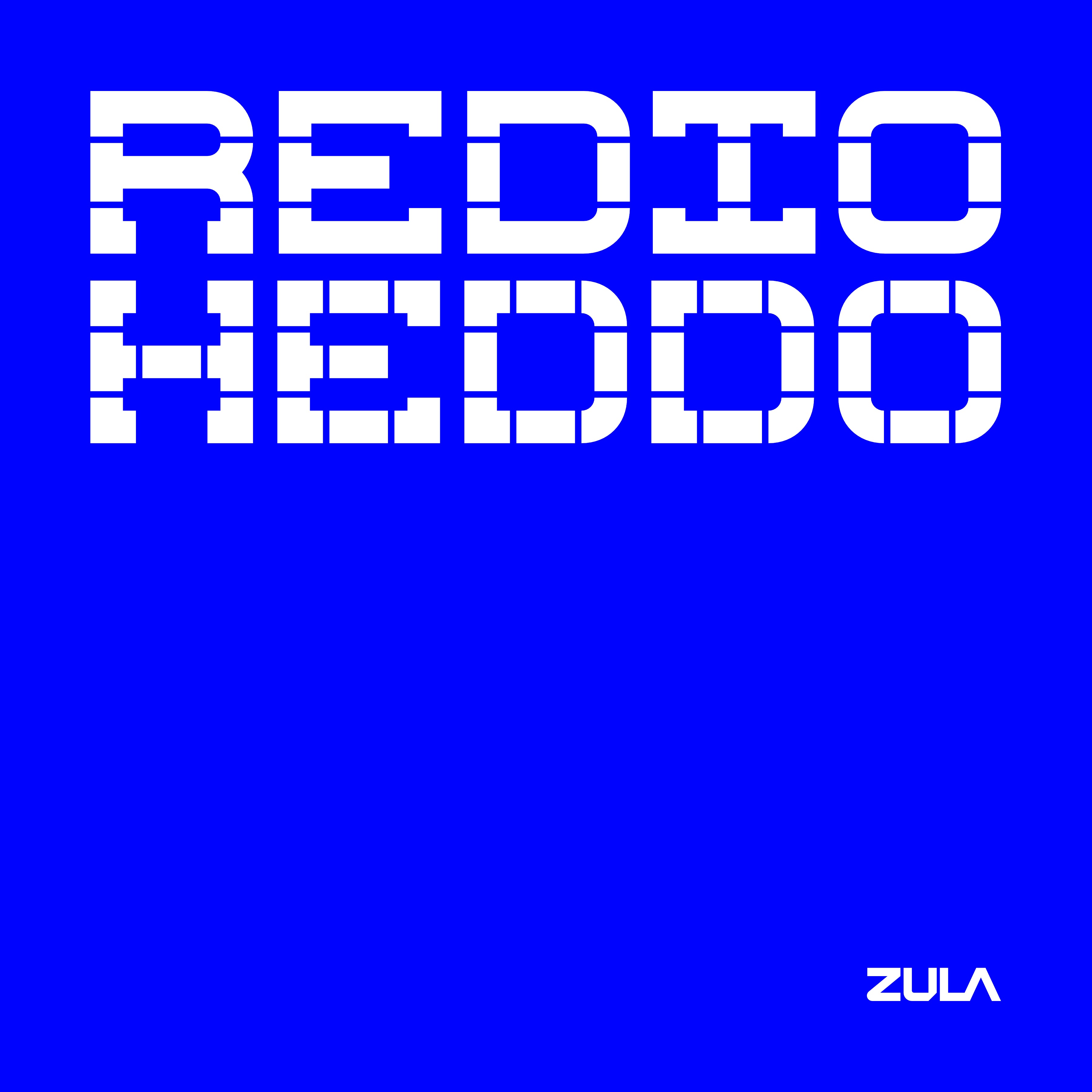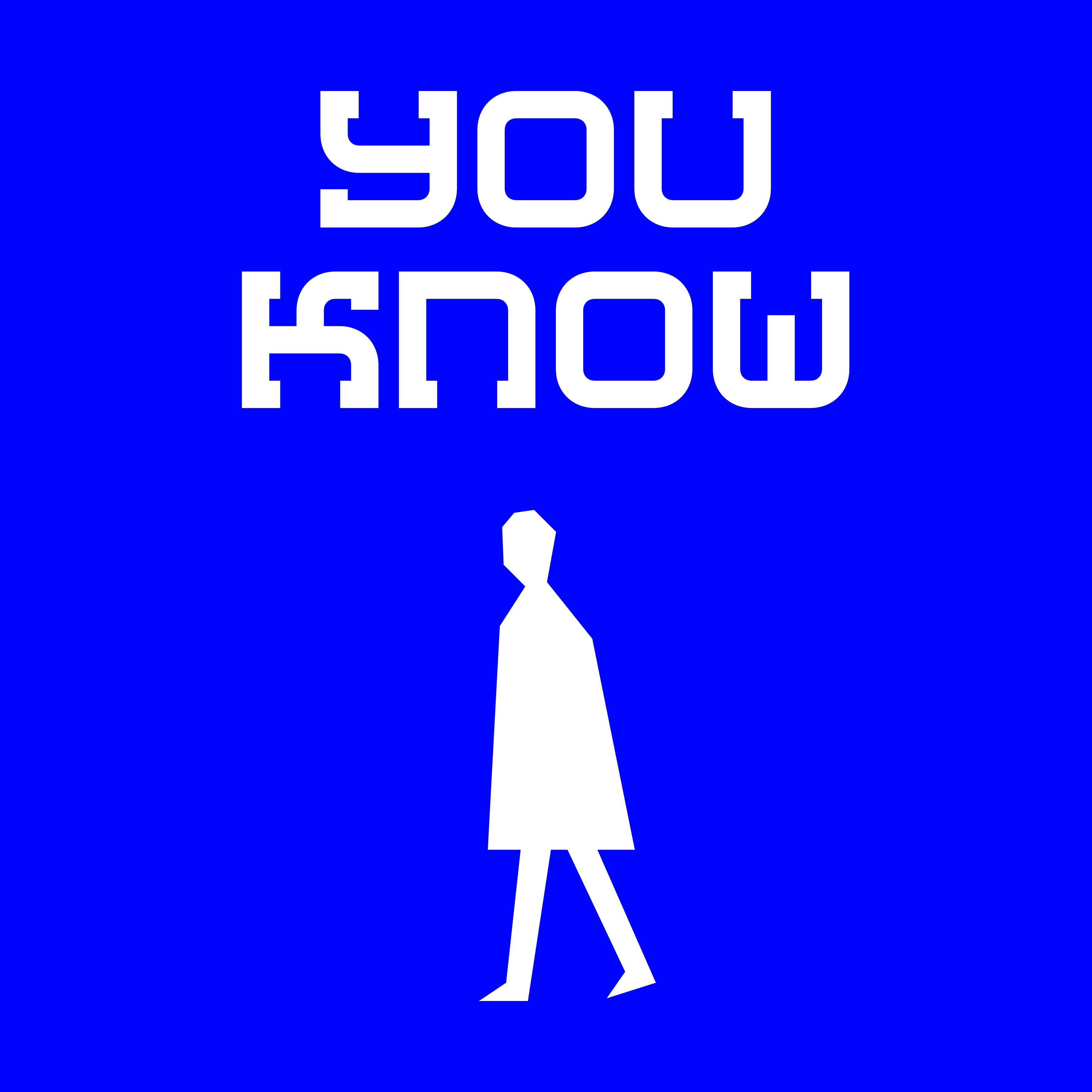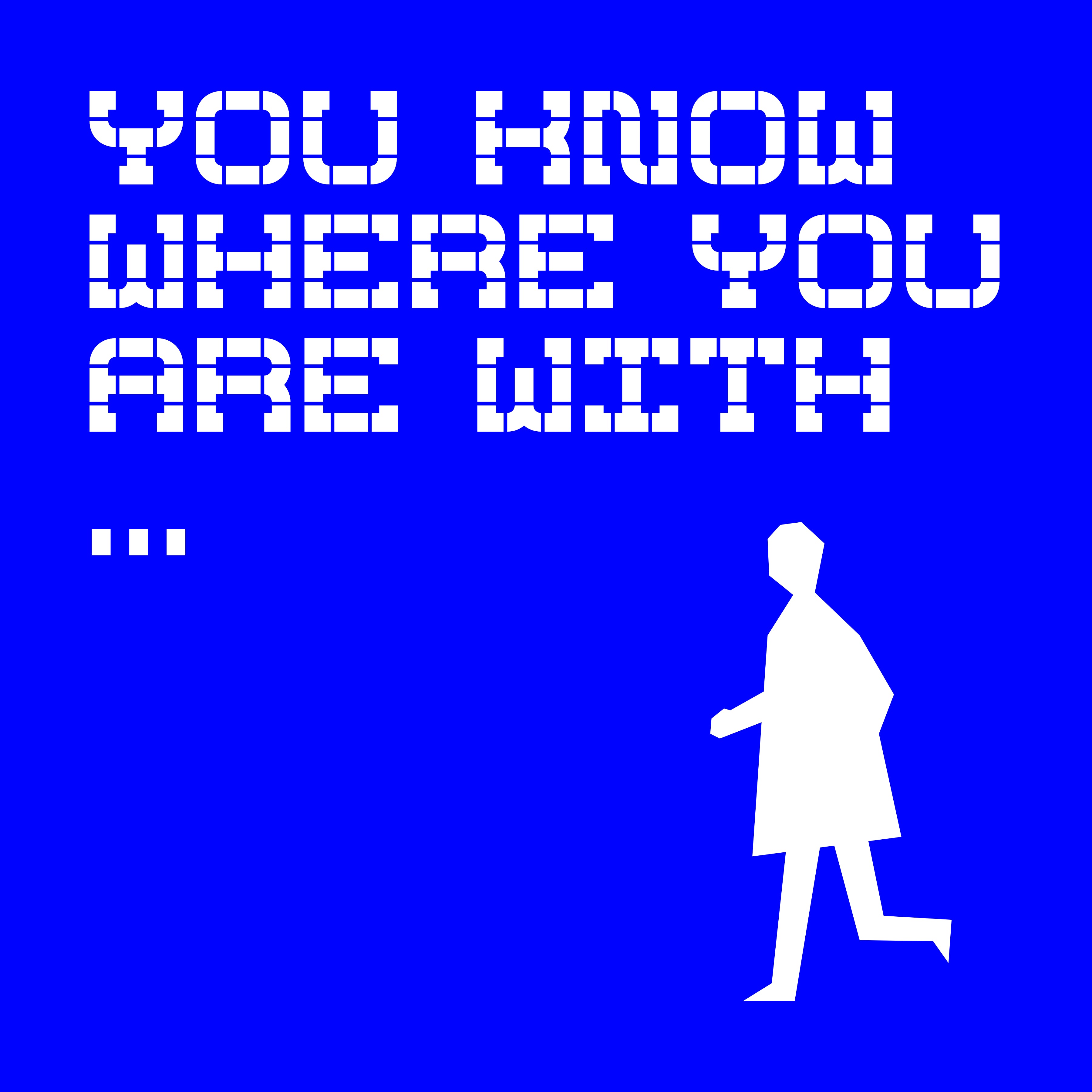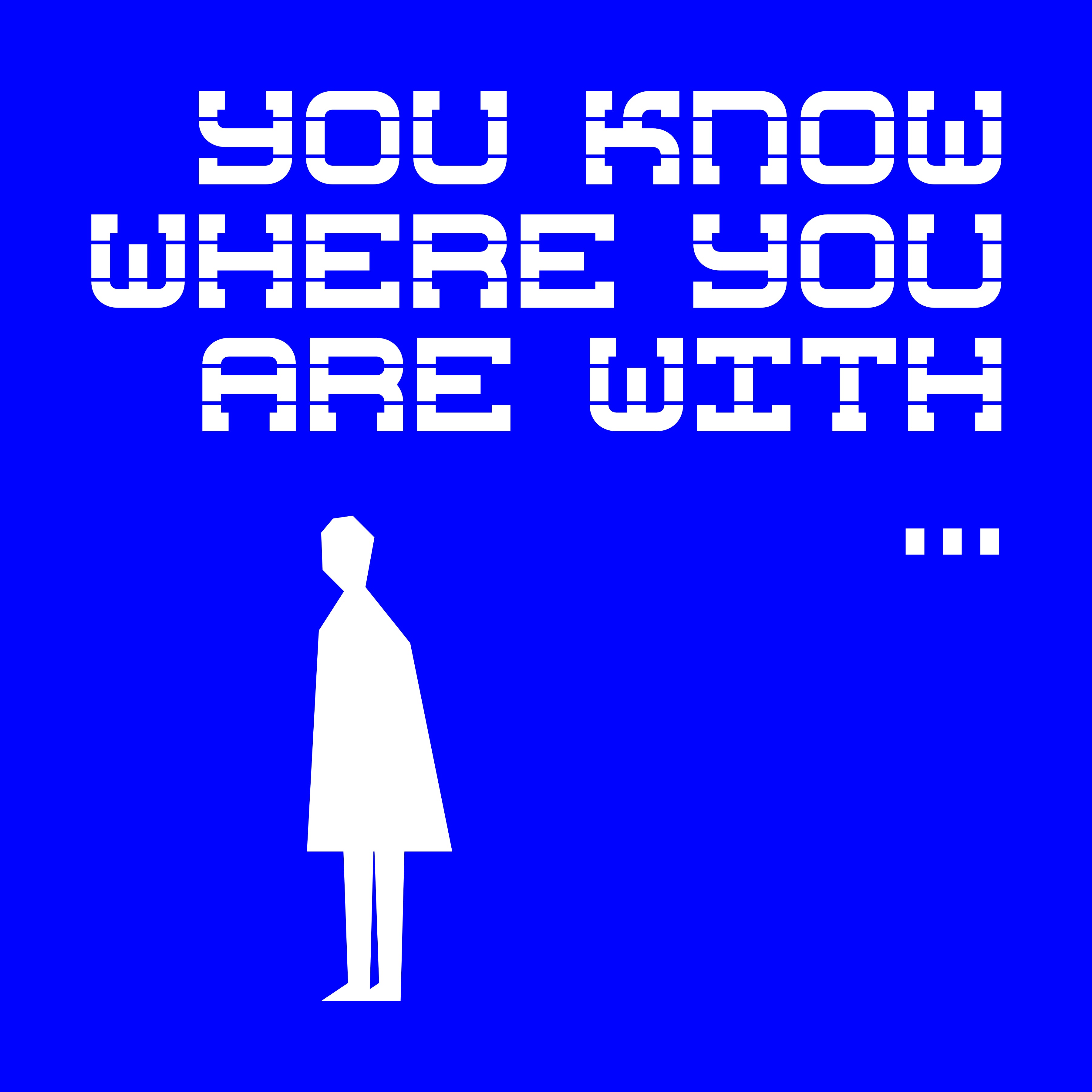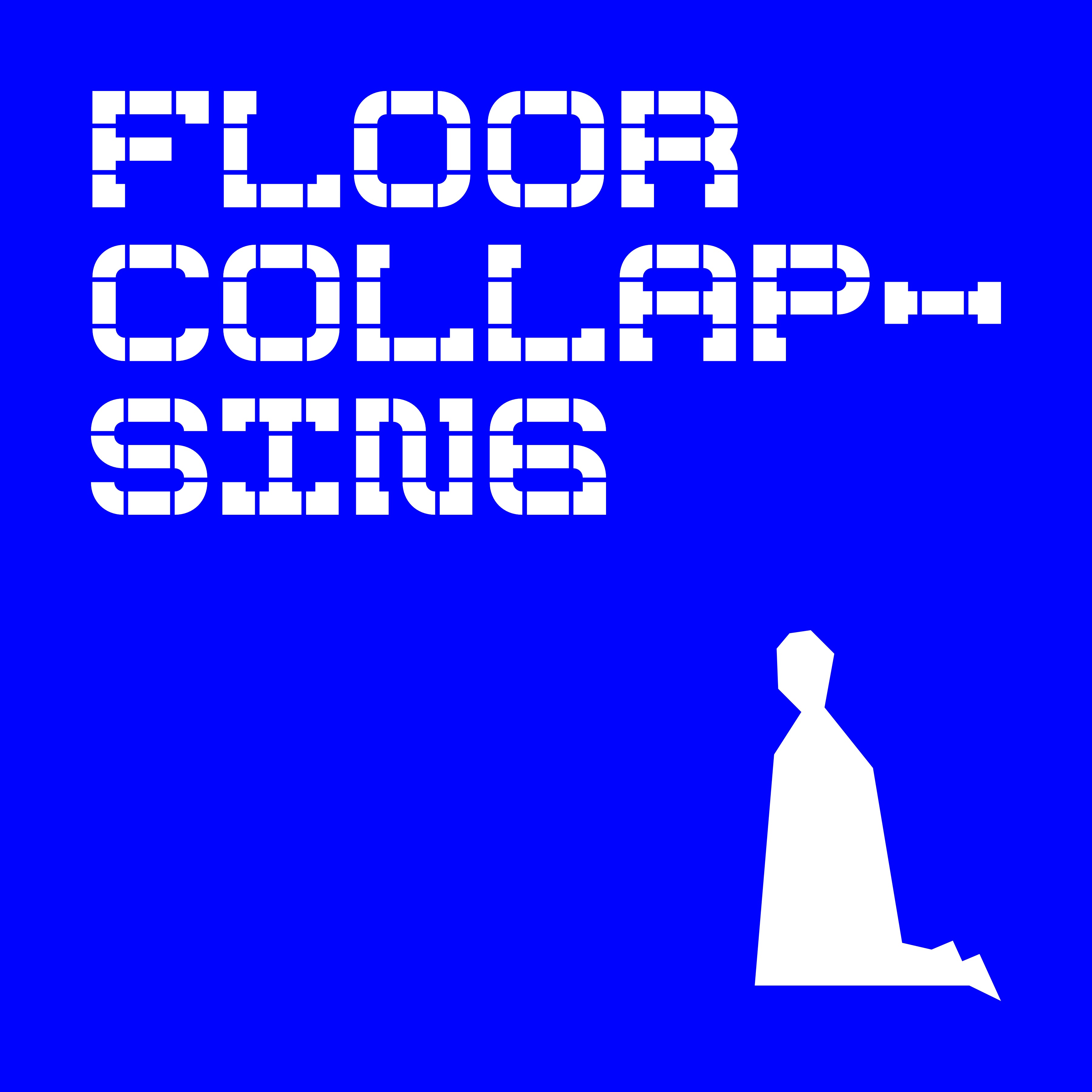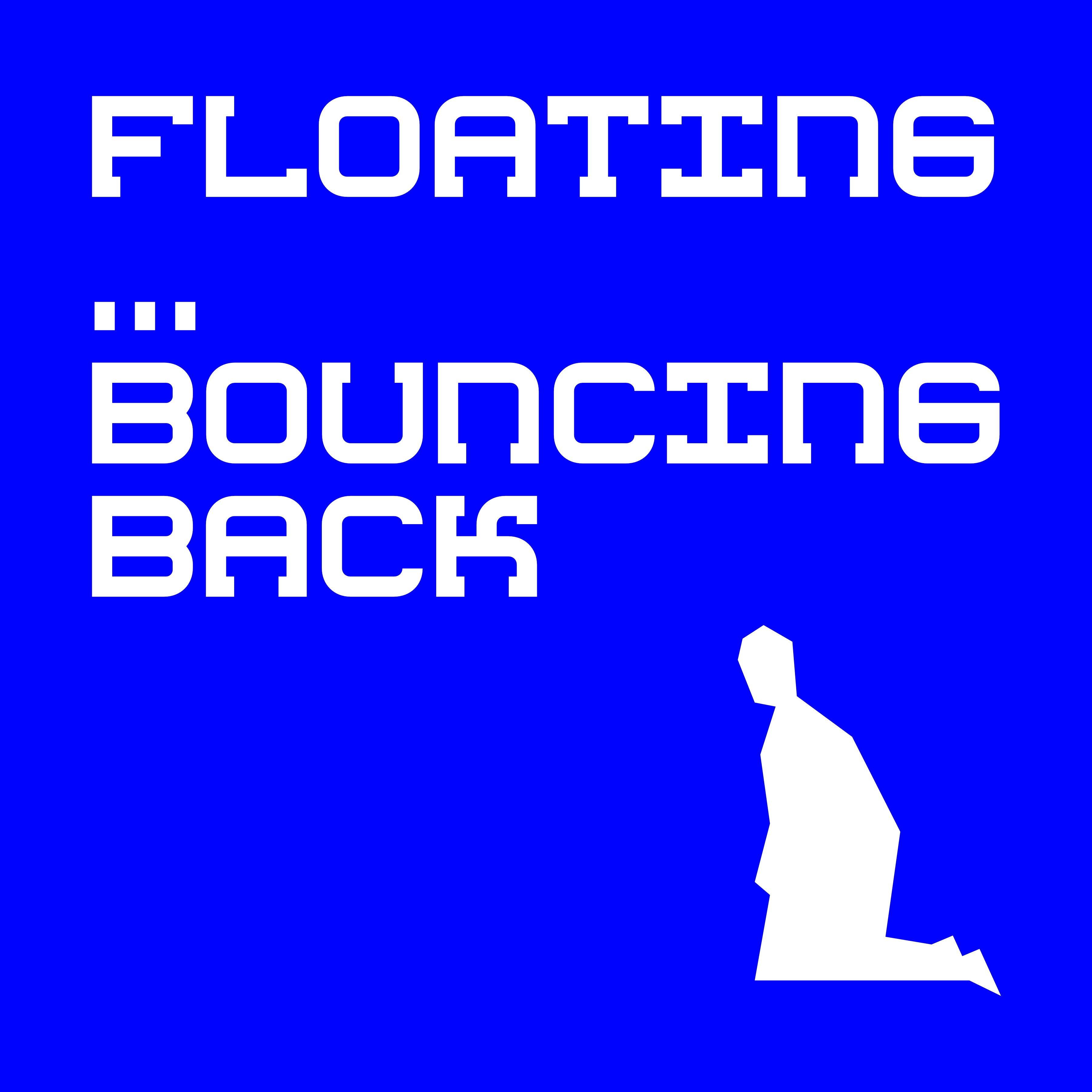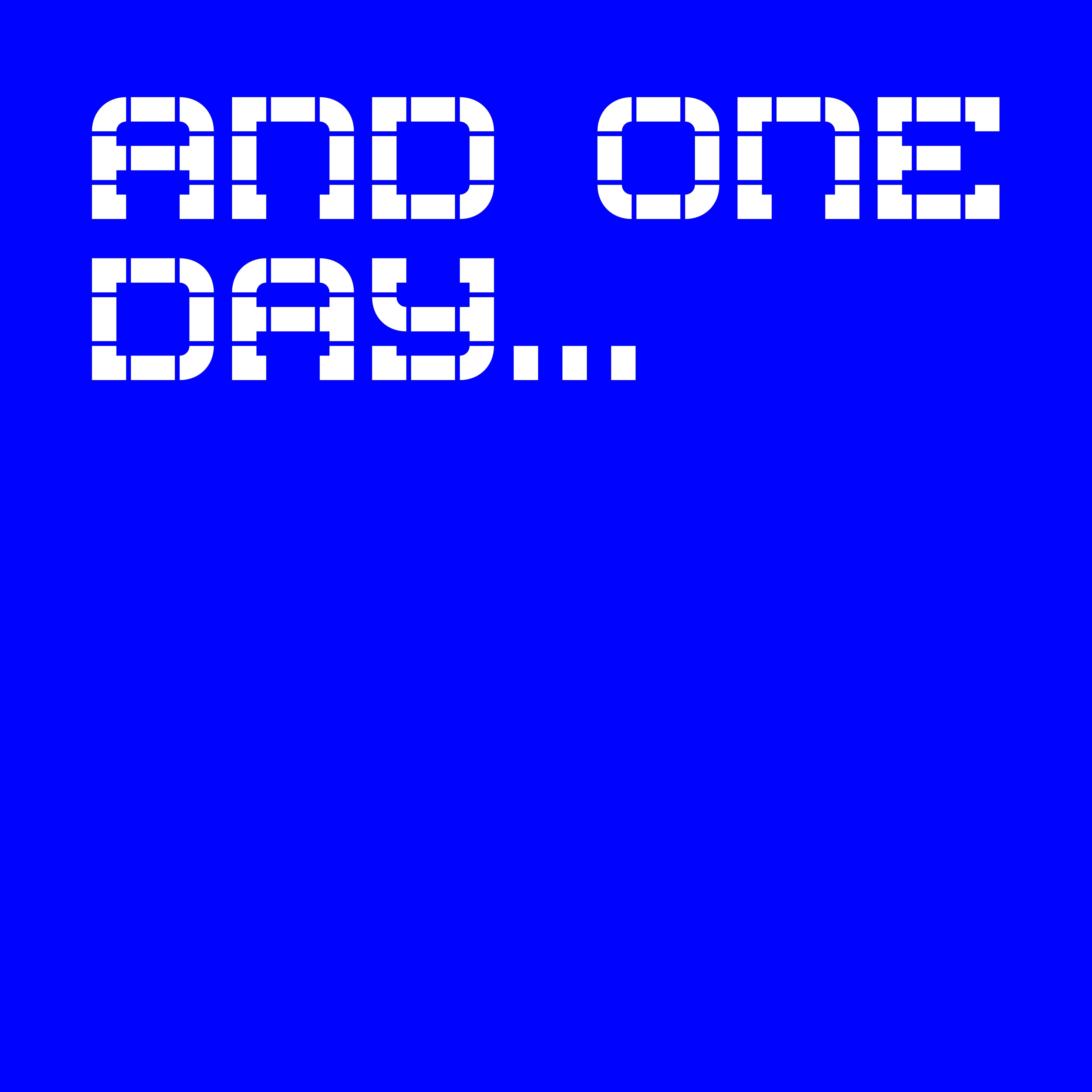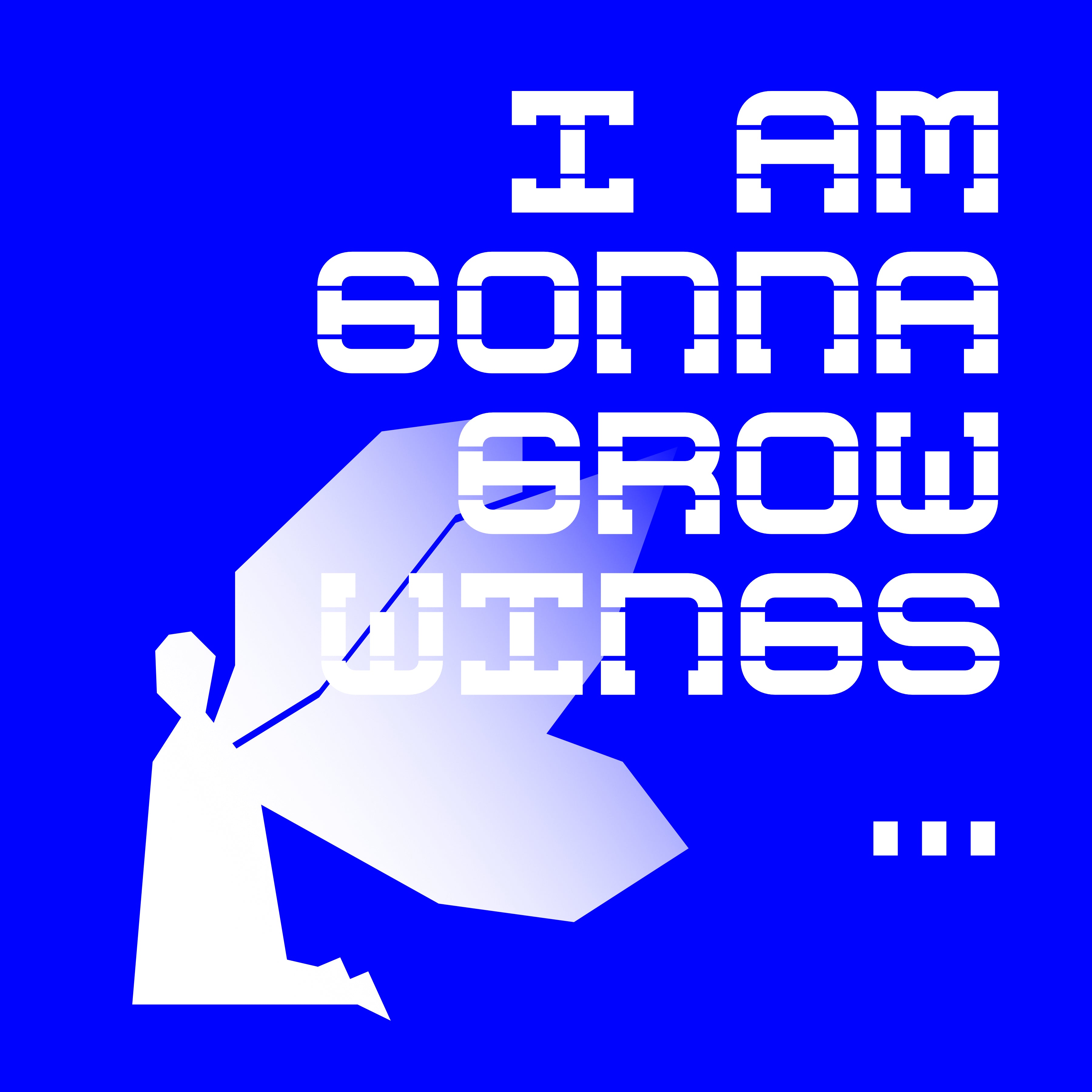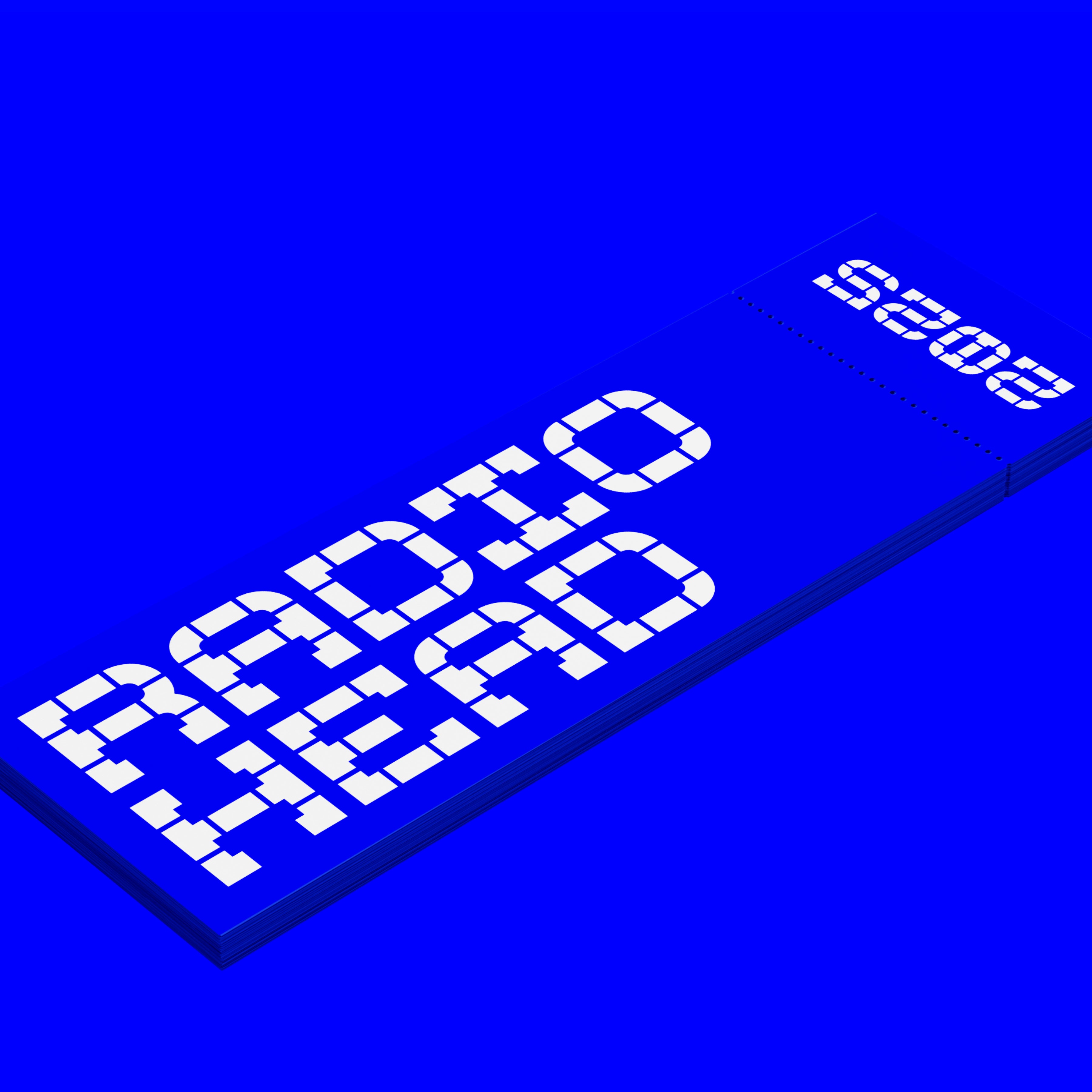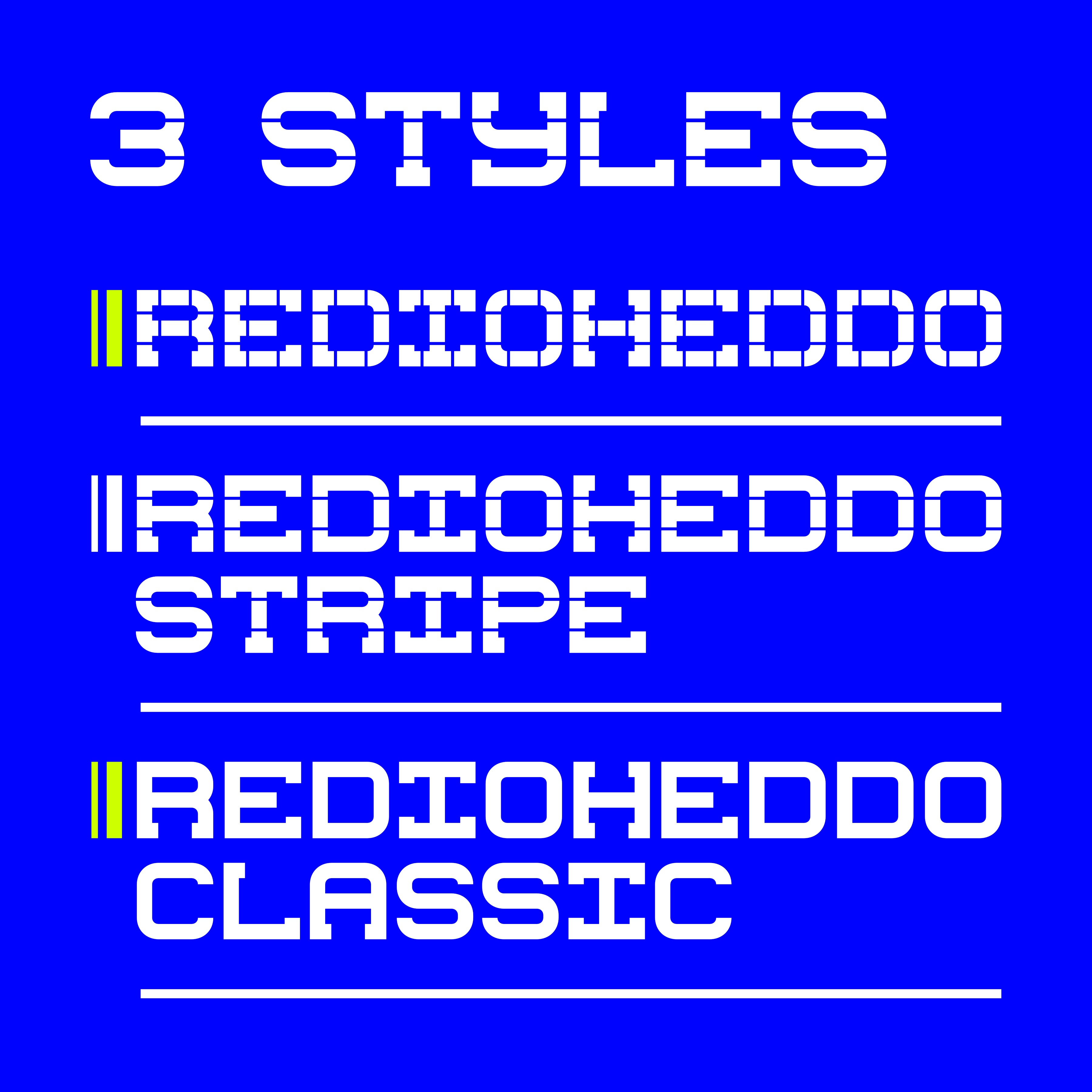
REDIOHEDDO TYPEFACE FAMILY
The REDIOHEDDO Typeface Family is an all-caps typeface inspired by the band Radiohead, featuring a rigid composition in its letter forms. It includes three styles (REDIOHEDDO, REDIOHEDDO STRIPE, REDIOHEDDO CLASSIC), supports OTF/TTF formats, offers WOFF (Extended Only), and contains 26 letters (A-Z), 5 alternative letters, 10 numerals, and basic punctuation.